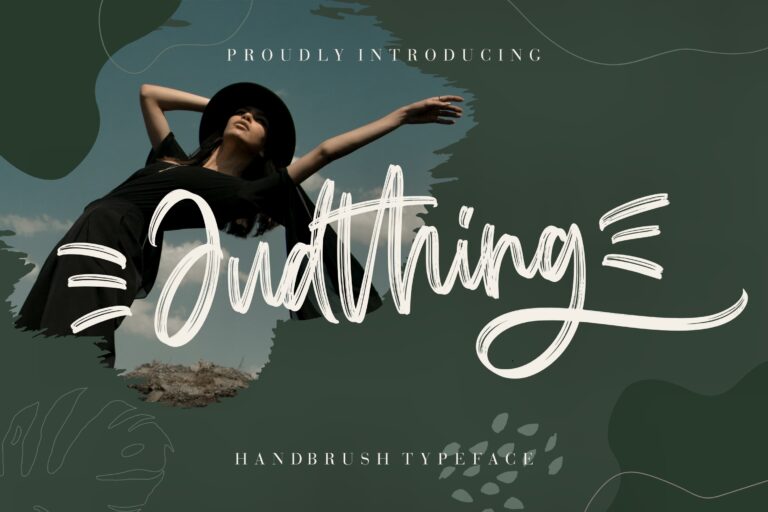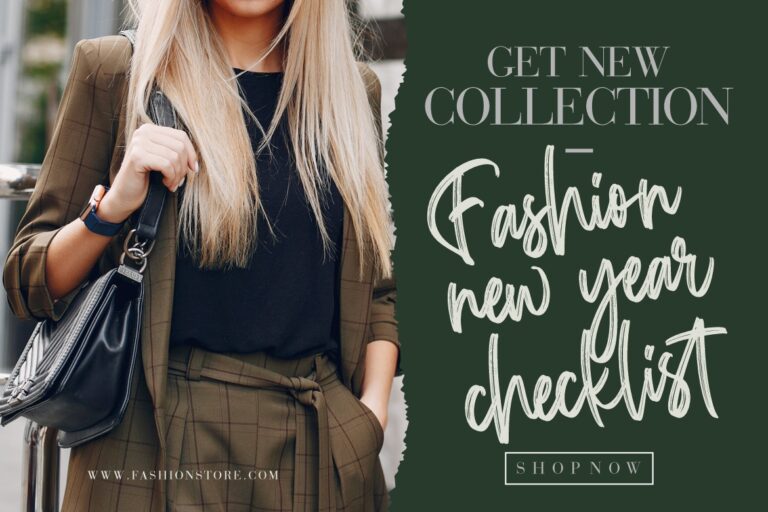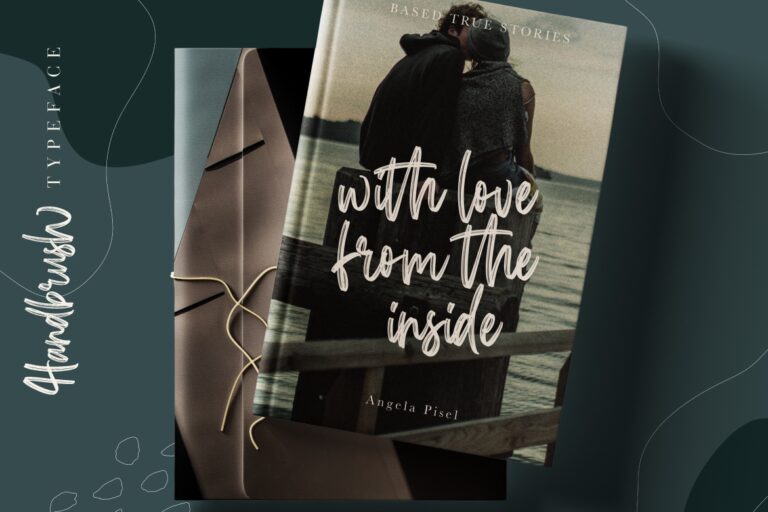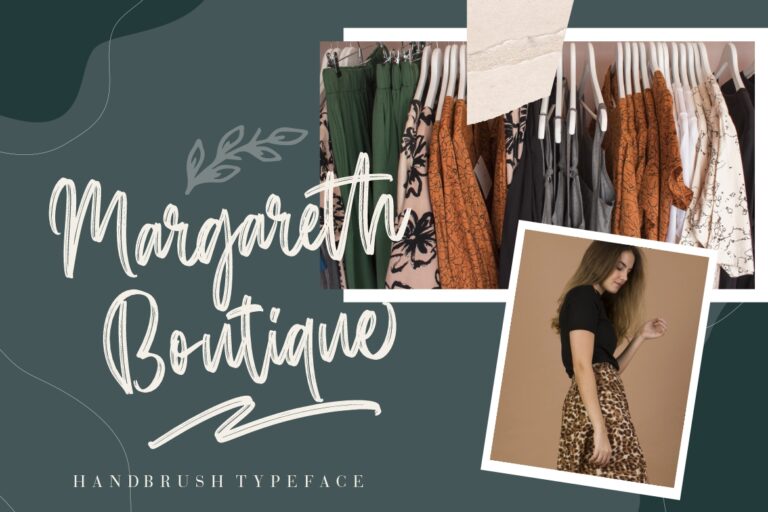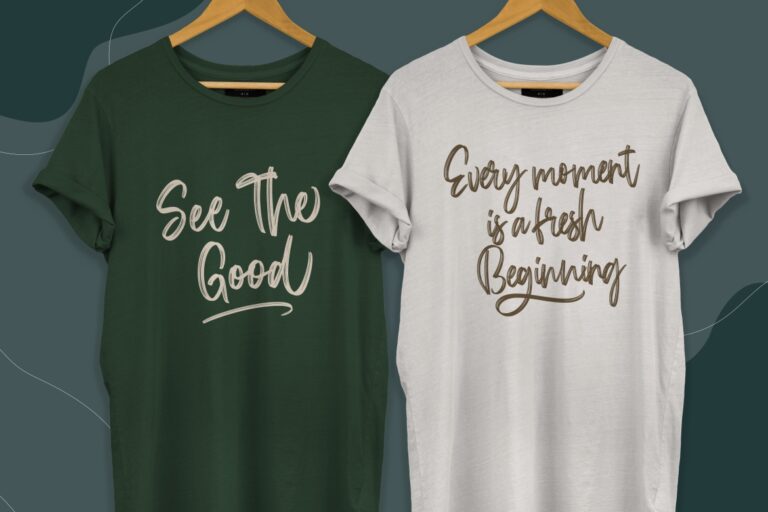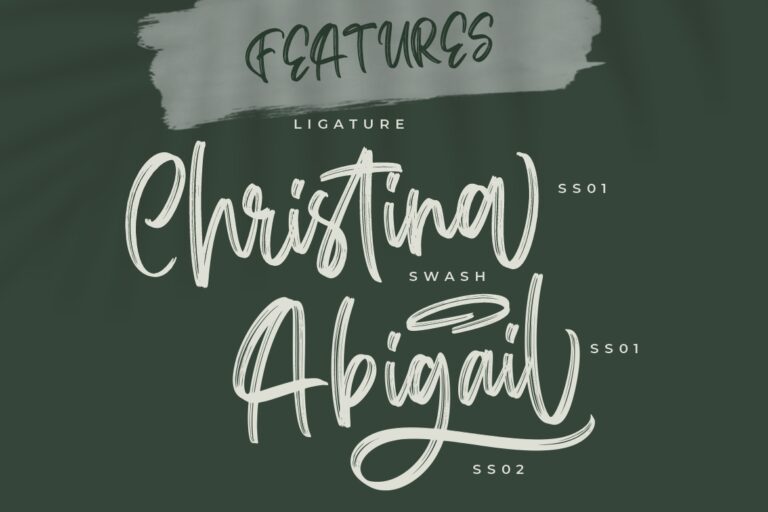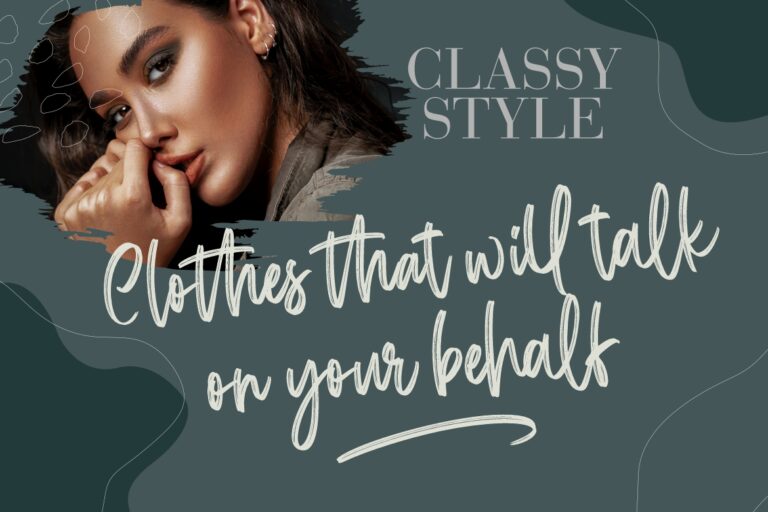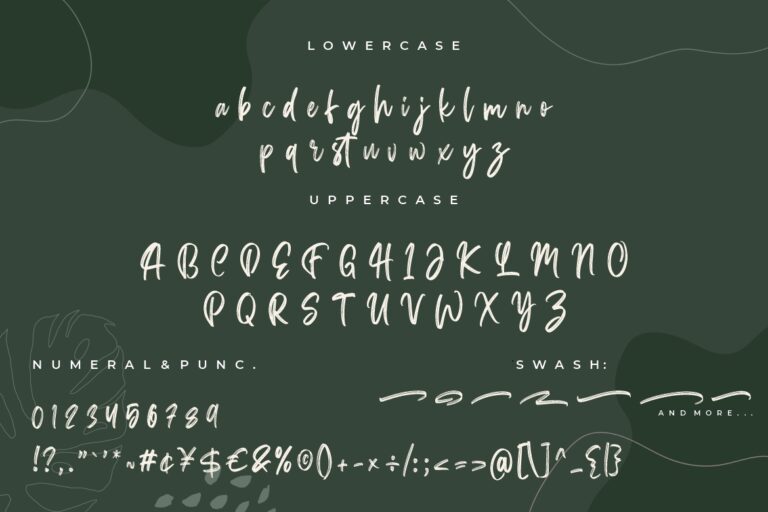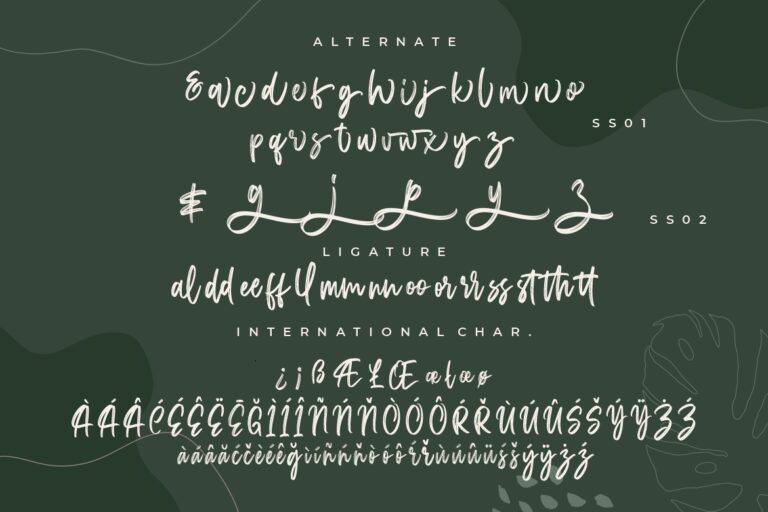
Judthing is natural handbrush font which looks modern and classy will perfect for your project.
Judthing would perfect for photography, watermark, social media posts, advertisements, logos & branding, invitation, product designs, label, stationery, wedding designs, product packaging, special events or anything that need handwriting taste.
- Ligature, Alternate & Swashes
Judthing Handbrush Typeface